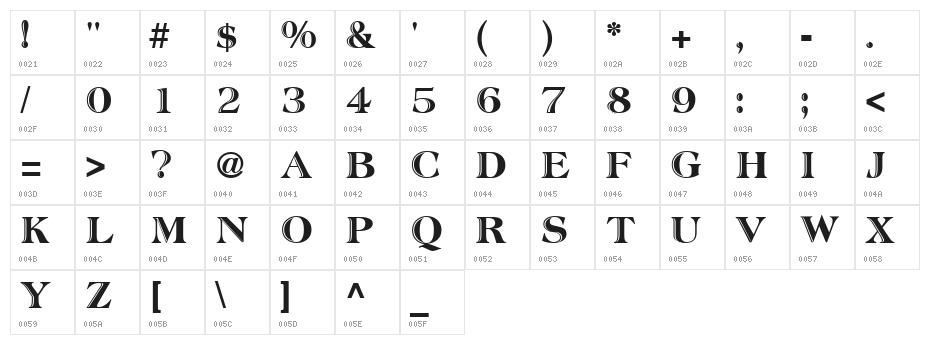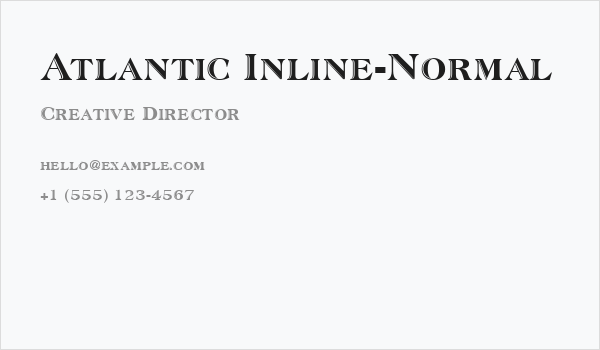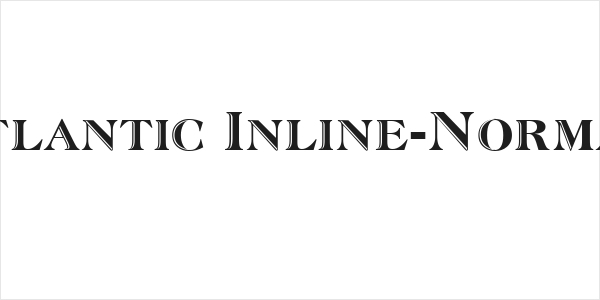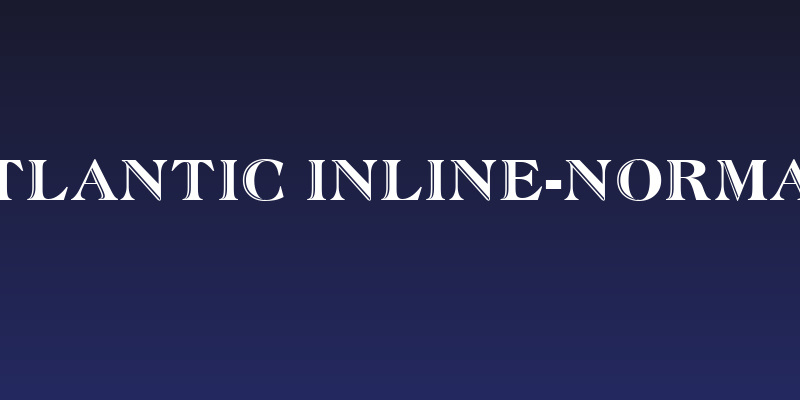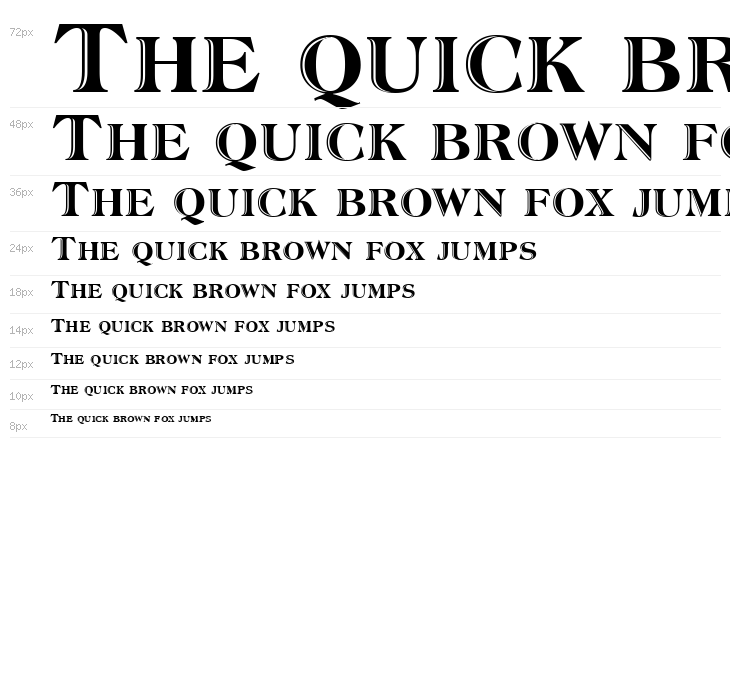
Atlantic Inline-Normal Font
Atlantic Inline-Normal Description
This font features a bold and striking serif style with an inline design that adds a unique flair to each character. The uppercase letters are robust and commanding, while the lowercase letters maintain a consistent and harmonious appearance. The numerals are clear and easily distinguishable, making them suitable for various applications. Special characters are designed with the same attention to detail, ensuring they complement the overall aesthetic. The font's inline detail provides a sense of depth and sophistication, making it ideal for projects that require a touch of elegance and distinction.
Overall StyleClassic
Proposed ProjectsIdeal for branding, headlines, posters, and any design project requiring a sophisticated and eye-catching typeface.